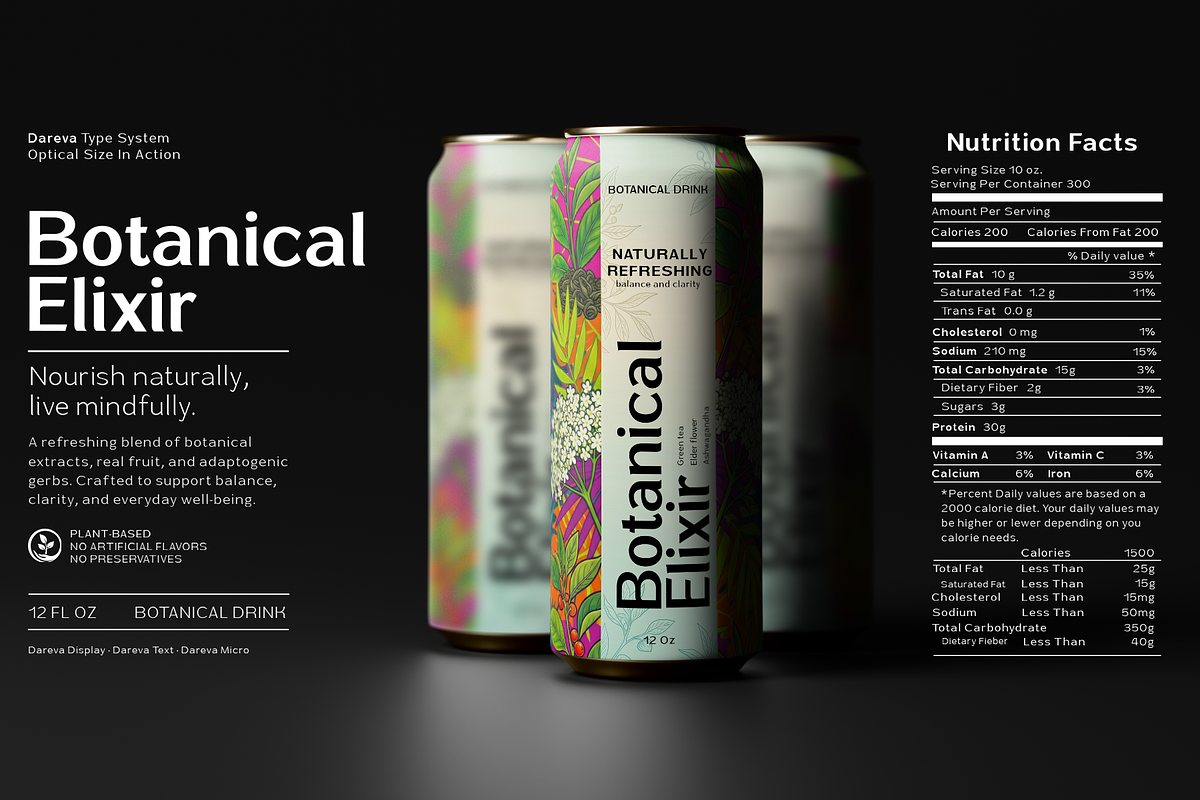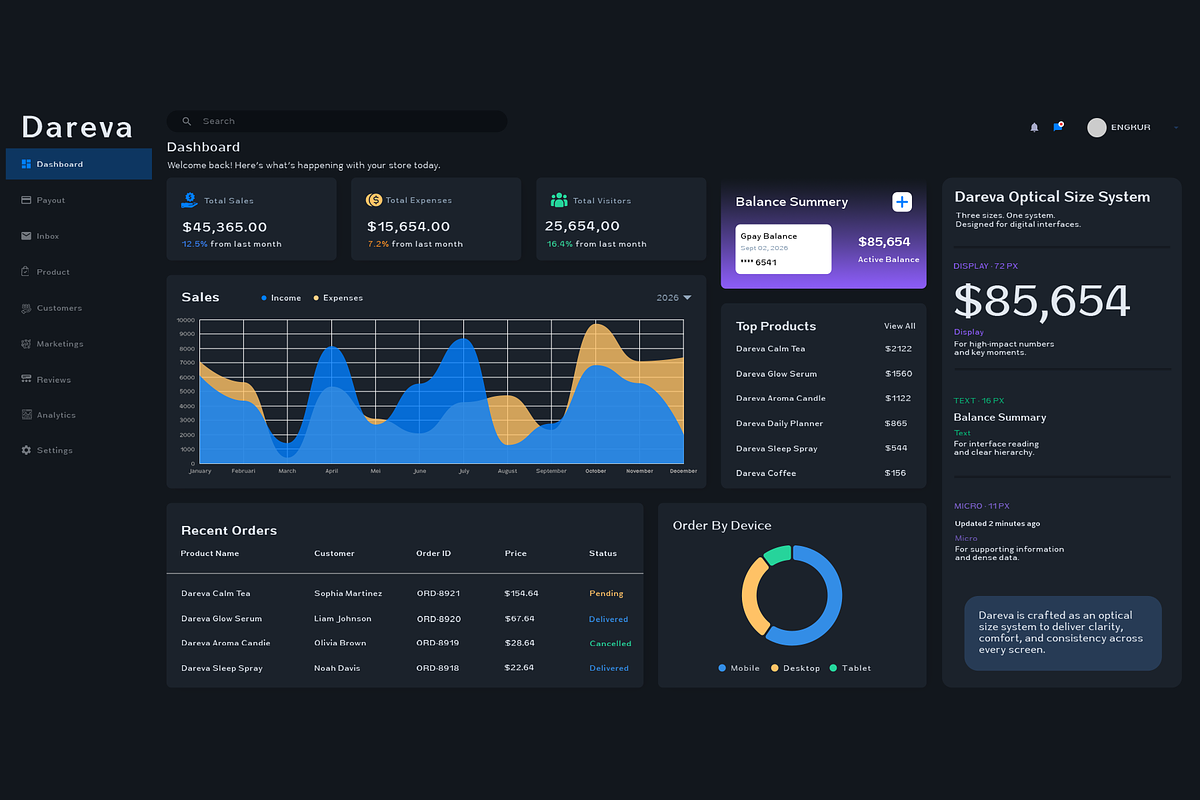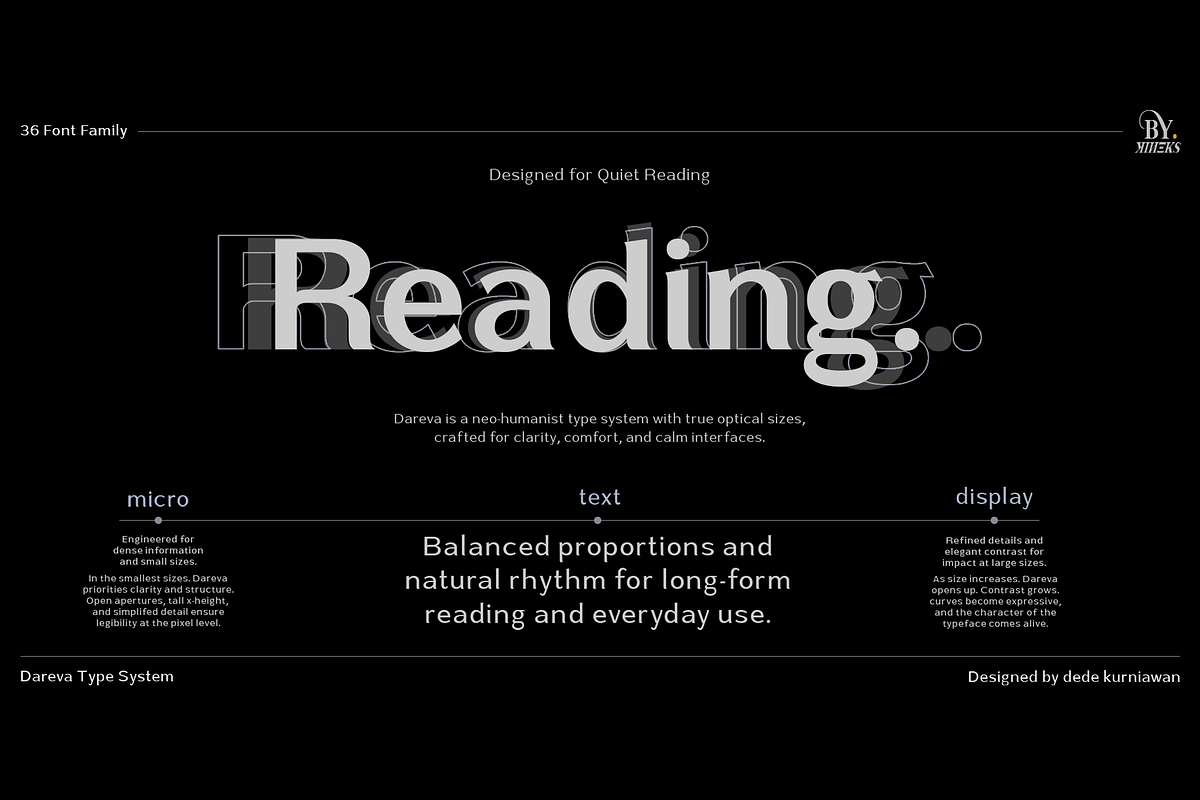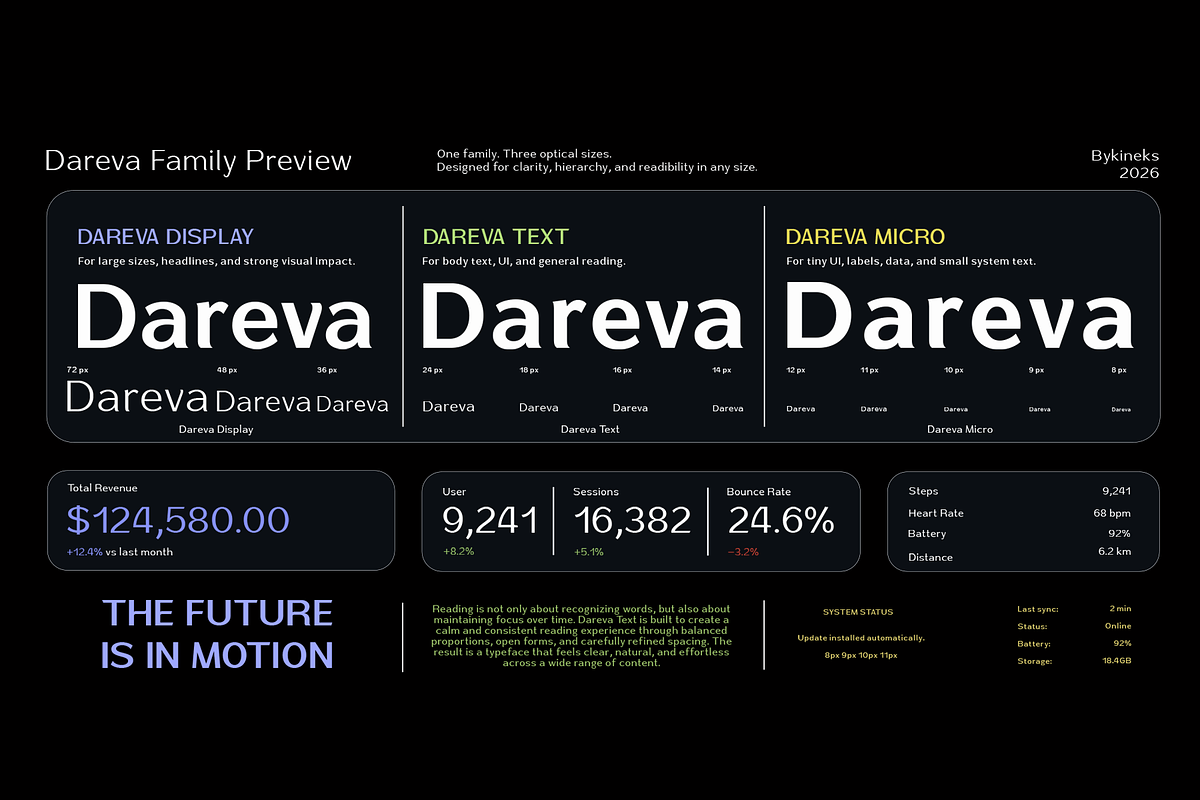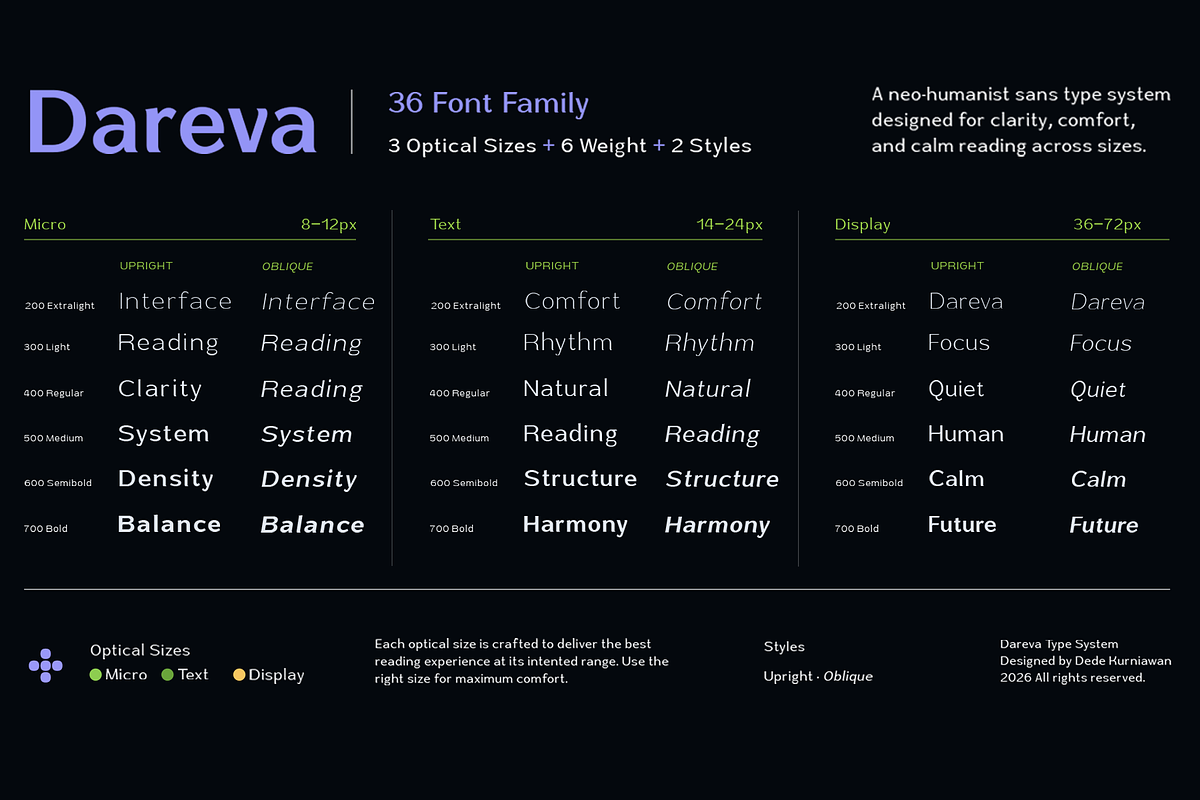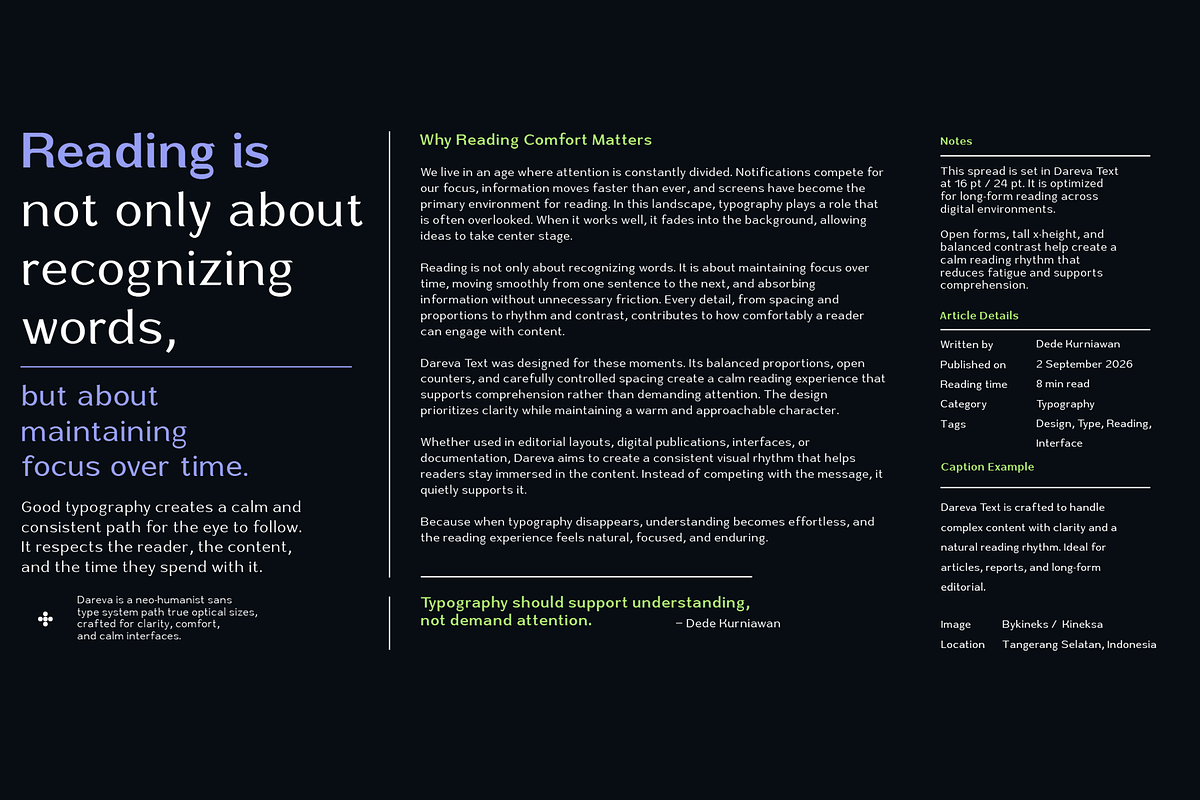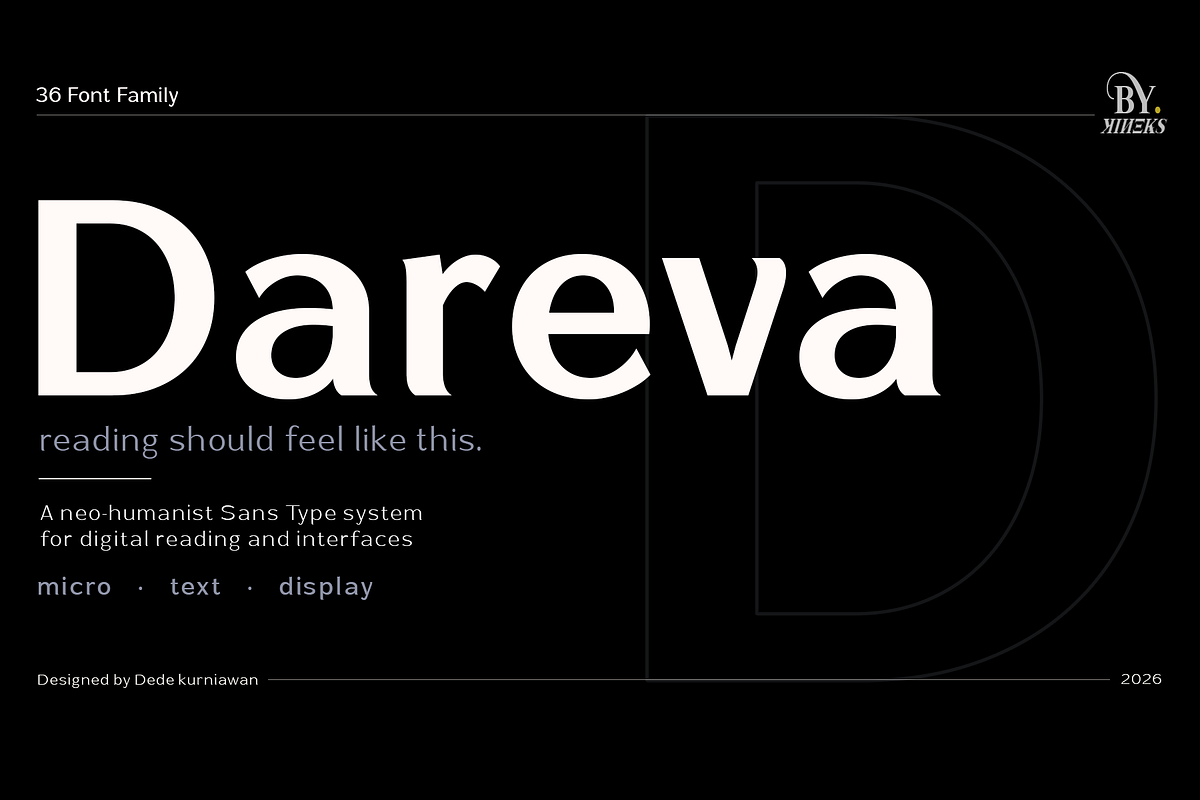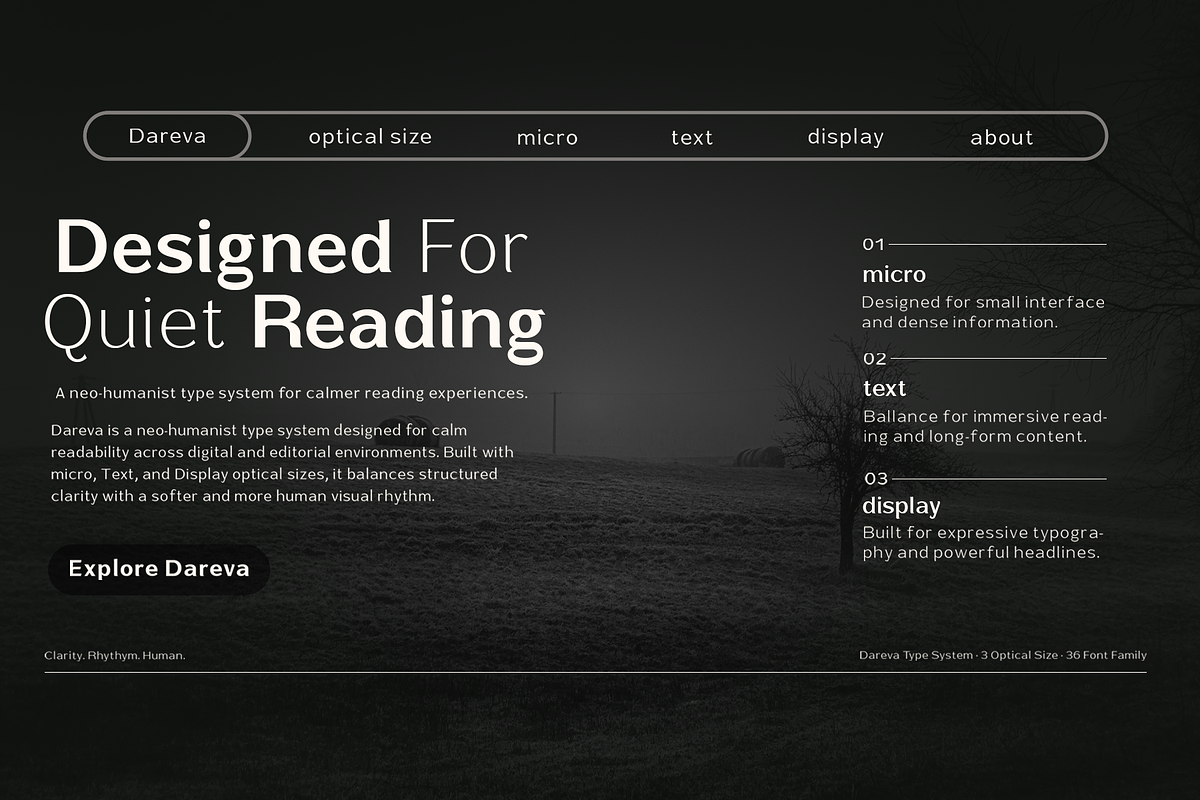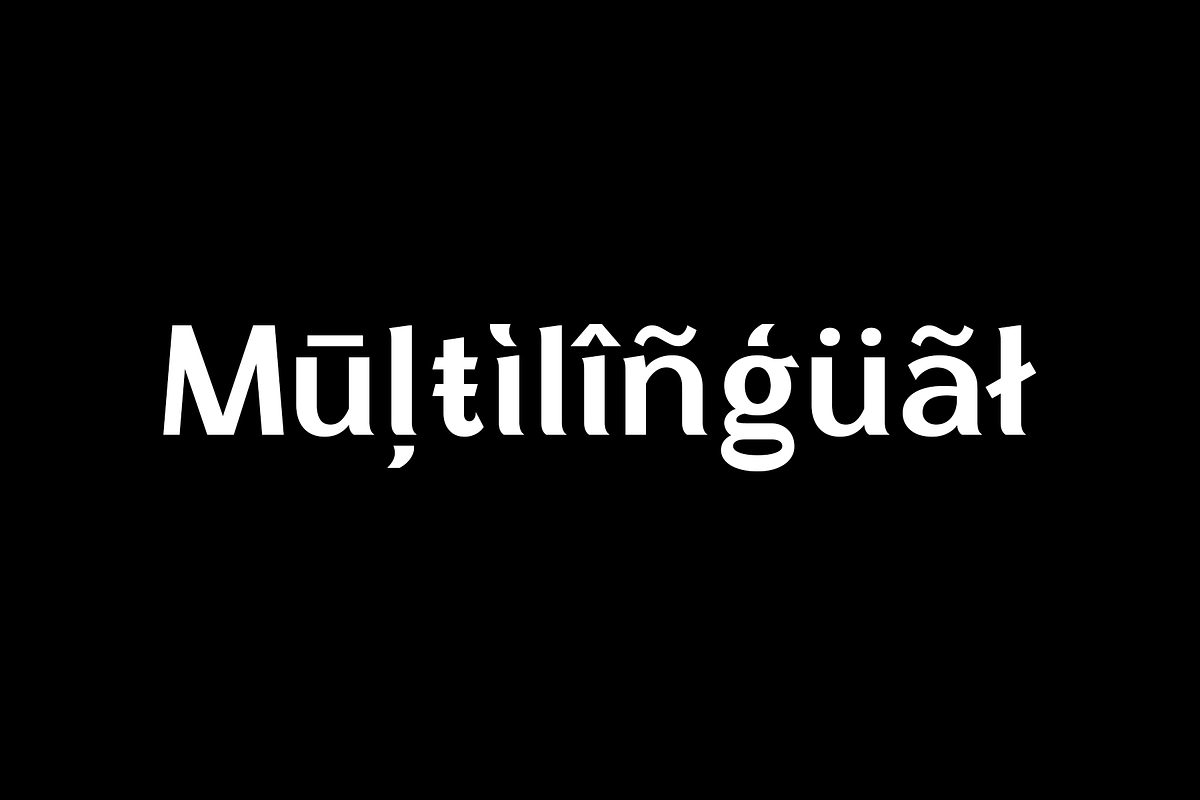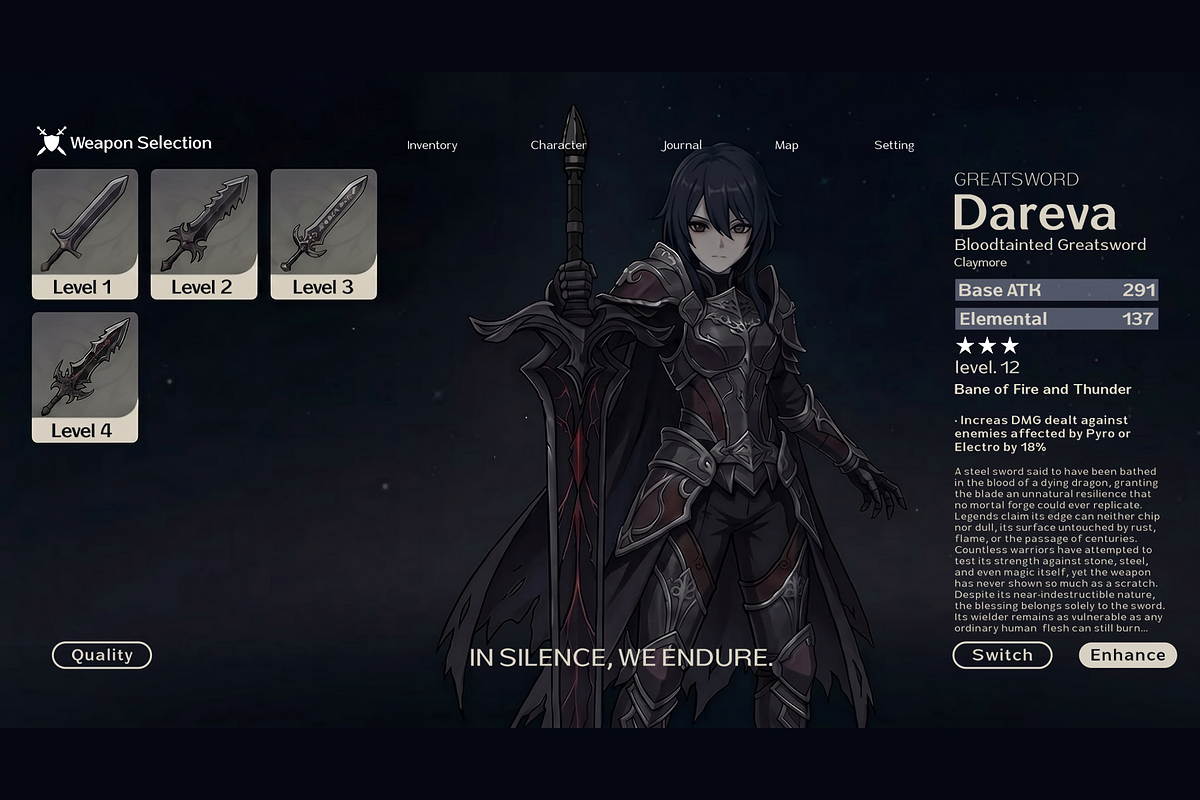
Dareva | Neo-Humanist Typeface
Dareva Type System
Dareva is a neo-humanist sans serif type system designed for reading comfort, digital interfaces, and modern editorial experiences.
Built around a true optical size approach, Dareva consists of three dedicated subfamilies — Micro, Text, and Display — allowing designers to maintain clarity, rhythm, and usability across different reading environments.
Rather than relying on a single design for every size, each optical size has been carefully refined to perform optimally in its intended context, from dense UI labels to immersive long-form reading and expressive headlines.
• True Optical Size System • Neo-Humanist Sans Serif Design • Optimized for Digital Reading • UI & Product Design Ready • Editorial Typography Support • Clean and Modern Appearance • Consistent Reading Rhythm • Carefully Balanced Spacing • Extensive Language Support
Why Dareva?
Reading is not only about recognizing words—it is about maintaining focus over time.
Dareva was designed to create a calm and effortless reading experience through balanced proportions, open forms, controlled spacing, and dedicated optical sizes. The result is a versatile type system that supports understanding while maintaining a modern and approachable character.
Language Support
Supports Latin-based languages with extensive multilingual coverage.